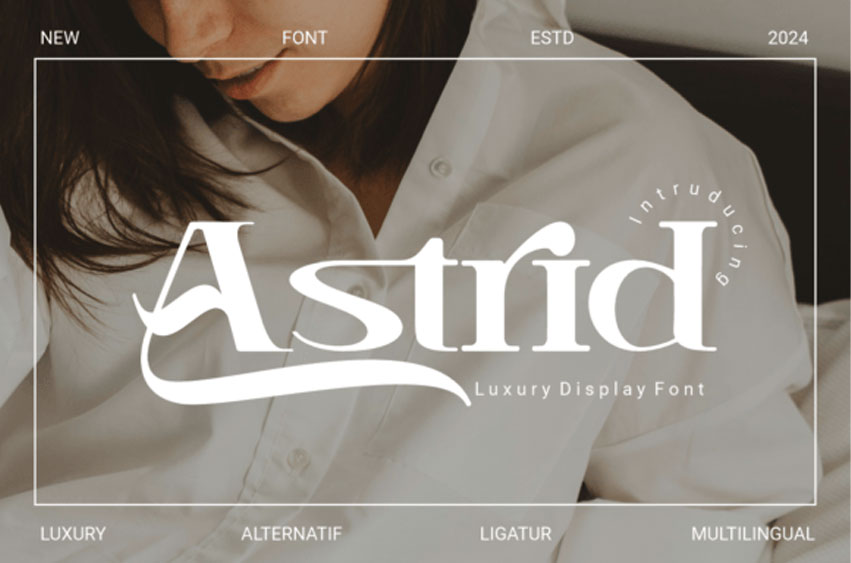
Astrid Display Font
Astrid Display Font is a unique font. Can make it easier to convey the message in your design.
Use for awesome display, labeling, clothing, movie scenes, posters, movie titles, gigs, album covers, logos, and much more.